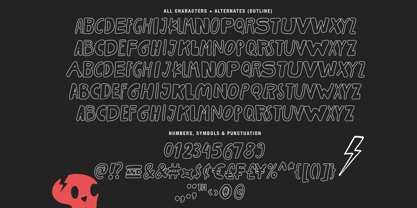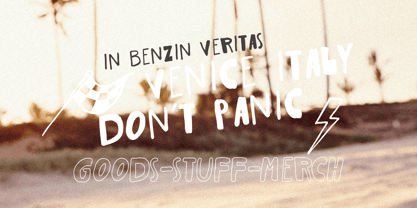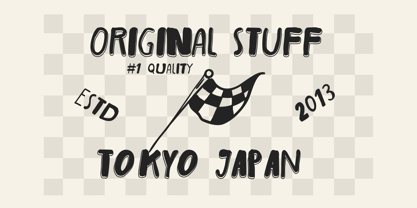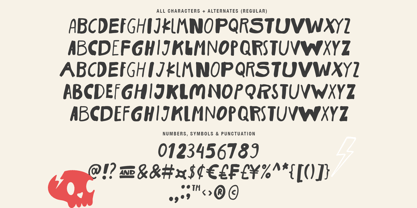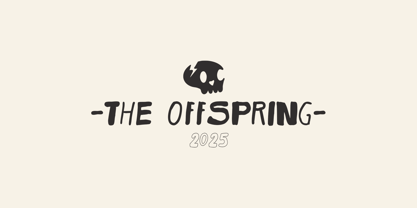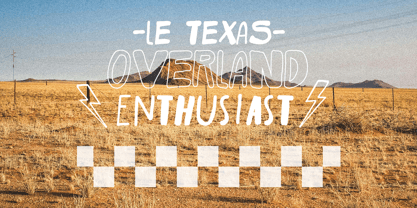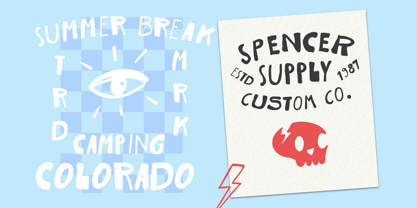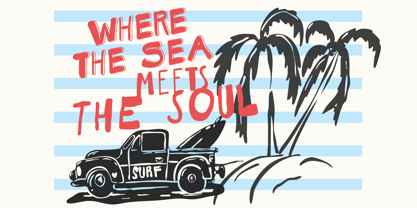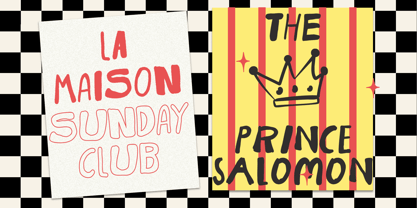
The Wild Copenhagen
by Jolicia Type
The The Wild Copenhagen Font Family was designed by Laire Banyu, Dyaharum Pungki Revitasari and published by Jolicia Type. The Wild Copenhagen contains 2 styles and family package options. More about this family
The Wild Copenhagen is a bold and untamed sans-serif typeface that captures the spirit of the wild north. Inspired by the raw, rebellious vibes of Nordic street culture, this typeface brings an unpolished, handmade feel into your design work. Its imperfect letterforms add personality and authenticity, making it ideal for edgy branding, music posters, urban fashion, or artisan packaging
This font comes in two unique styles:
• Regular – Rough, uneven strokes that feel alive and full of character.
• Outline – A hand-drawn hollow version that adds a modern and stylish contrast.
Whether you’re designing logos, headlines, or eye-catching quotes, The Wild Copenhagen makes your message loud and clear—with a wild touch.